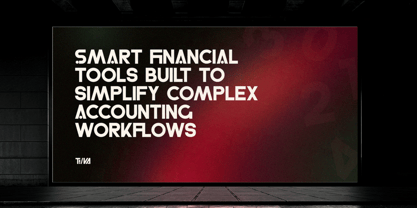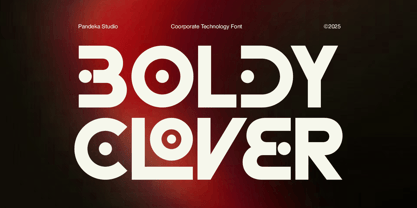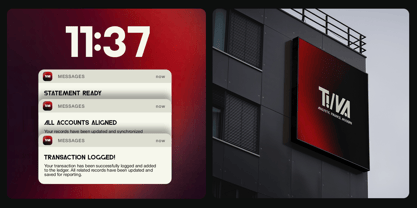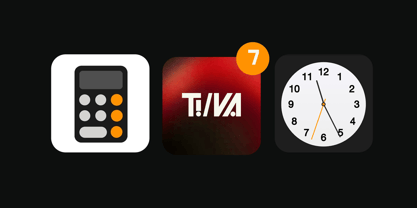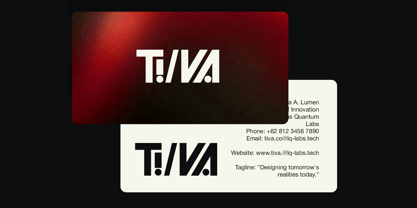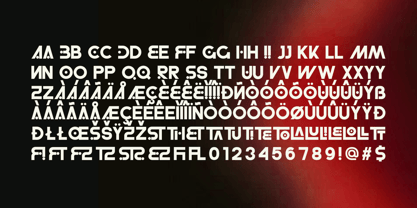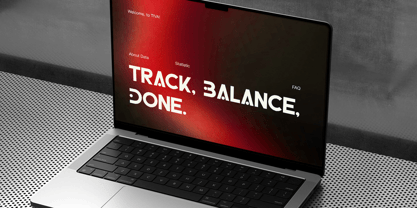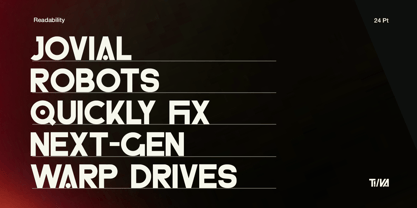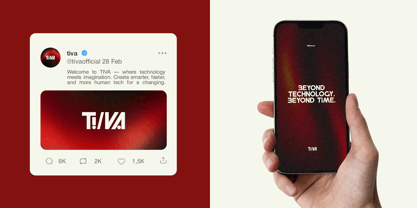
Boldy Clover
Boldy Clover is a modern technology font built to express innovation, intelligence, and digital confidence. Featuring bold geometric letterforms with clean edges and a futuristic feel, this font delivers a strong visual impact while maintaining excellent readability. Its structure is designed to look sharp, smart, and professional—perfect for tech-forward branding and digital interfaces.
Equipped with 17+ ligatures, Boldy Clover allows smoother letter connections and refined typography details that enhance logos and headlines. This font is ideal for technology branding, fintech products, startup identities, apps, dashboards, presentations, UI/UX design, websites, posters, and corporate visuals. With a single Regular style, Boldy Clover is efficient, consistent, and powerful for both print and digital applications.
• 1 Style: Regular
• Full Character Set: Uppercase, lowercase, numbers, symbols, and punctuation
• 17+ Stylistic Ligatures